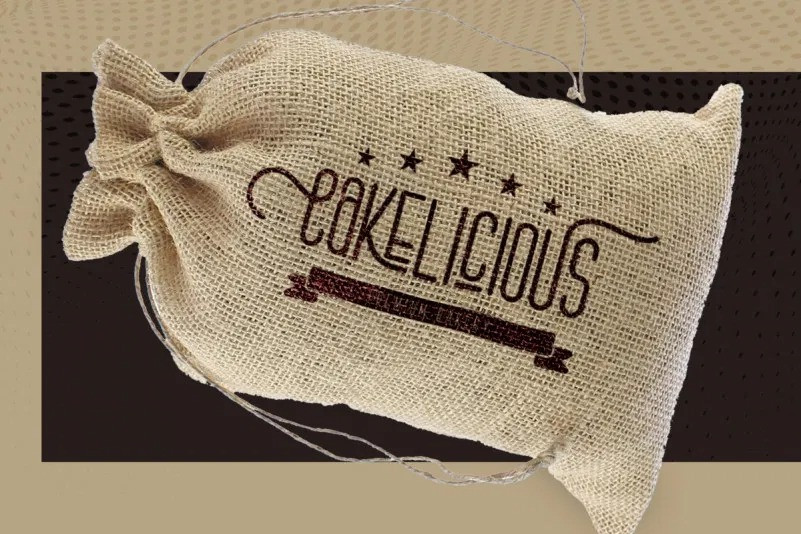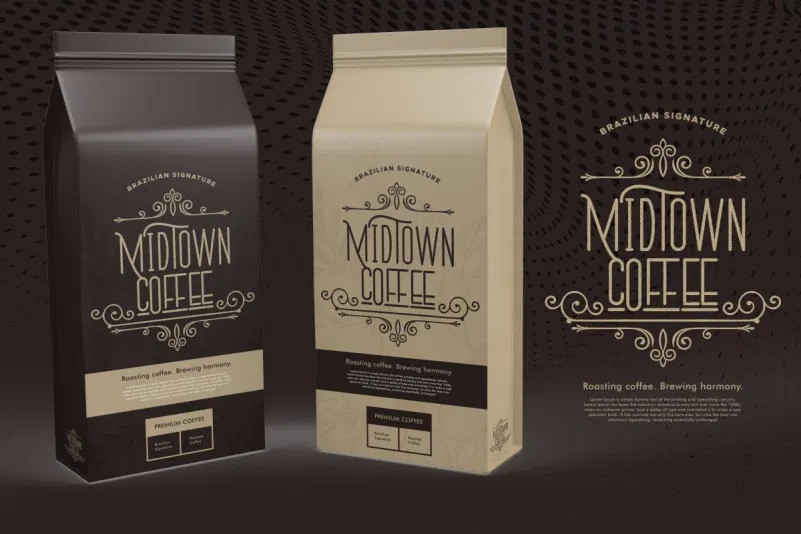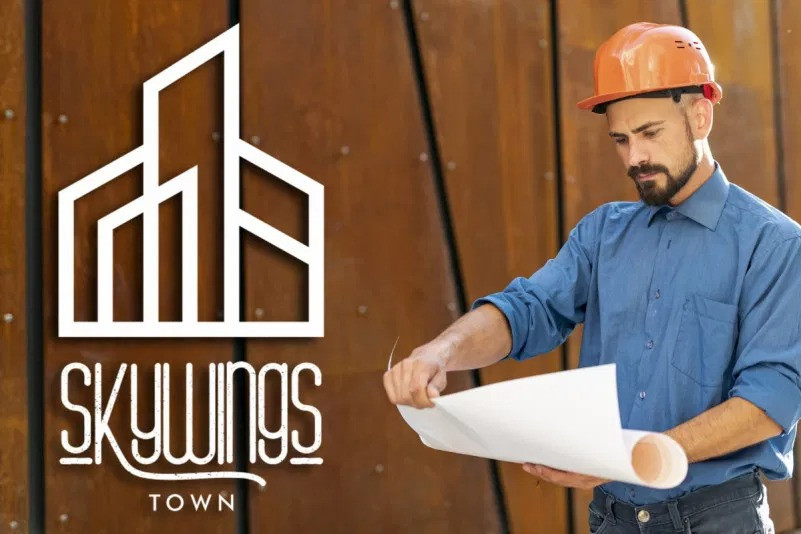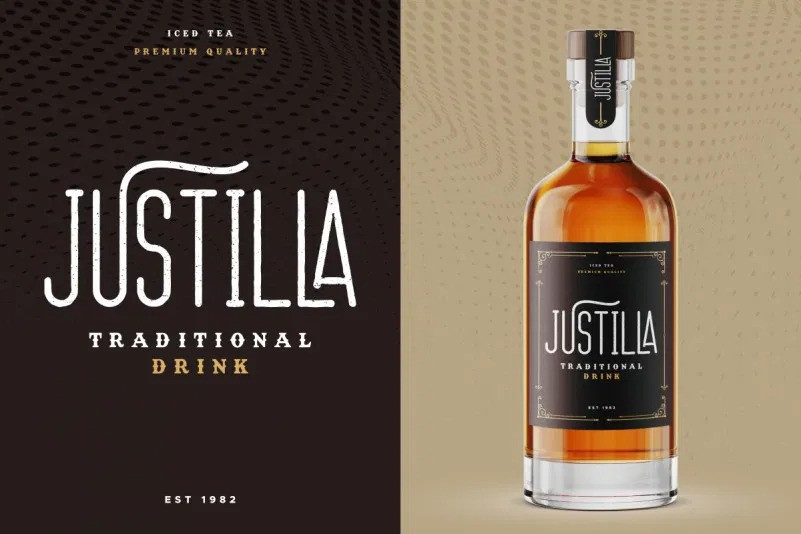
Vienna Town Vintage Font
It’s a vintage classic display font family originally designed by NihStudio.
Handcrafted here in our Studio , Indonesia. Vienna Town Font will be great for any projects (require extended license) including : branding, logo, stationery, business card, signage, flyer, brochure etc. Vienna Town Font comes great for many business categories : restaurant, cafe, music, singer, motor/car automotive, property etc